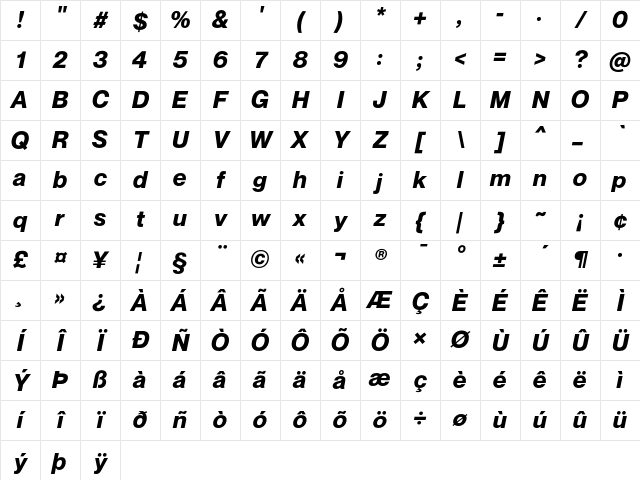
Neue Montreal Bold Italic
Foundry: Pangram Foundry
Designer: Mathieu Desjardins & Sebastien Tremblay
Design Context for Neue Montreal
Neue Montreal is a composed and adaptable typeface that performs quietly and consistently across a wide range of design contexts. The slanted form adds forward momentum and visual energy. Its bold stroke weight gives it real presence on the page.